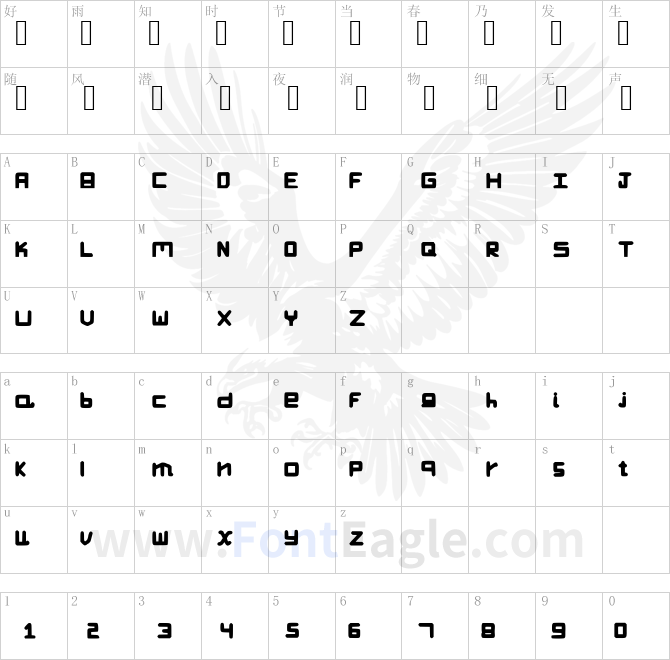
KasCrackFont is a great font, widely used in graphic design, single-page menu design, poster design and other fields, and is deeply loved by designers.KasCrackFont download.